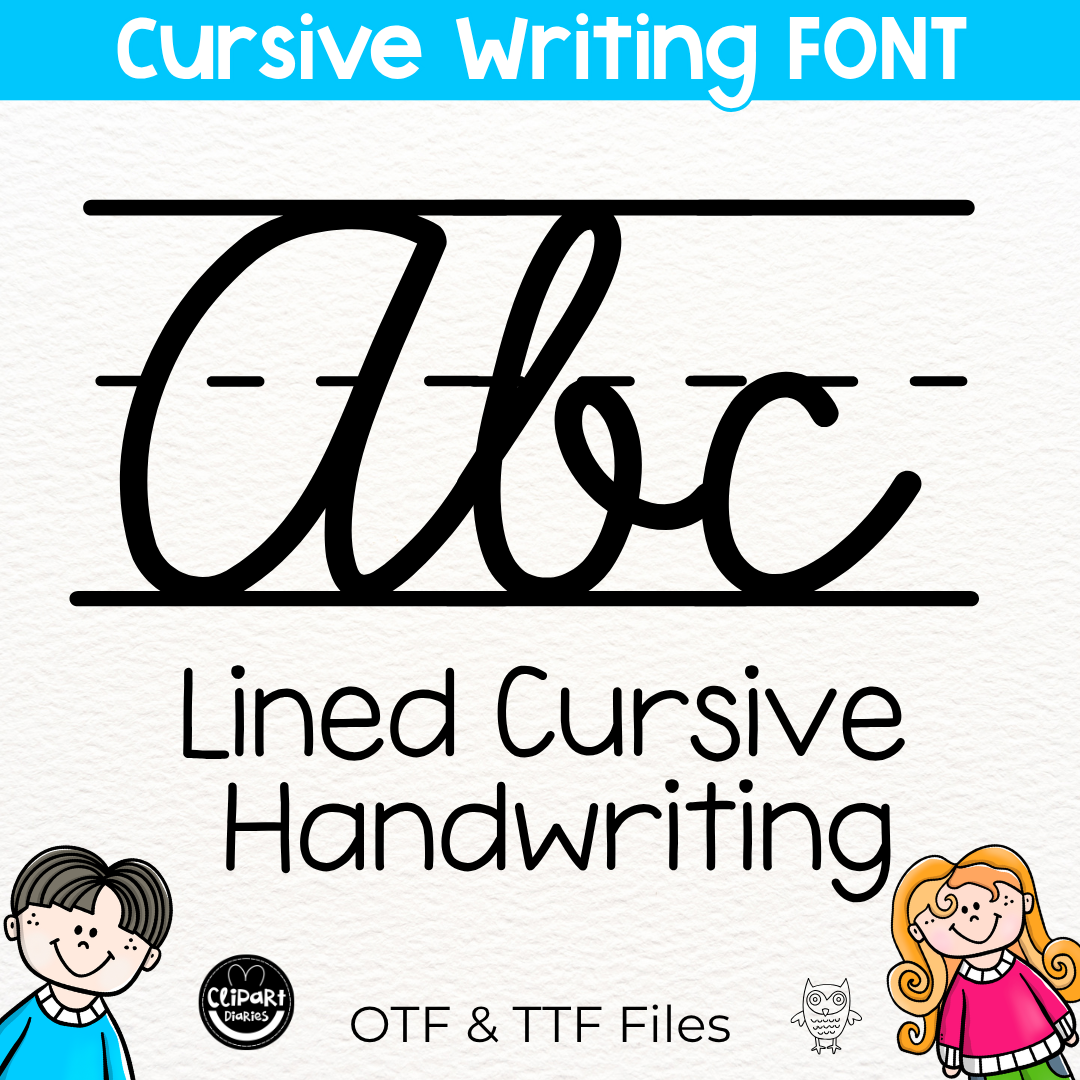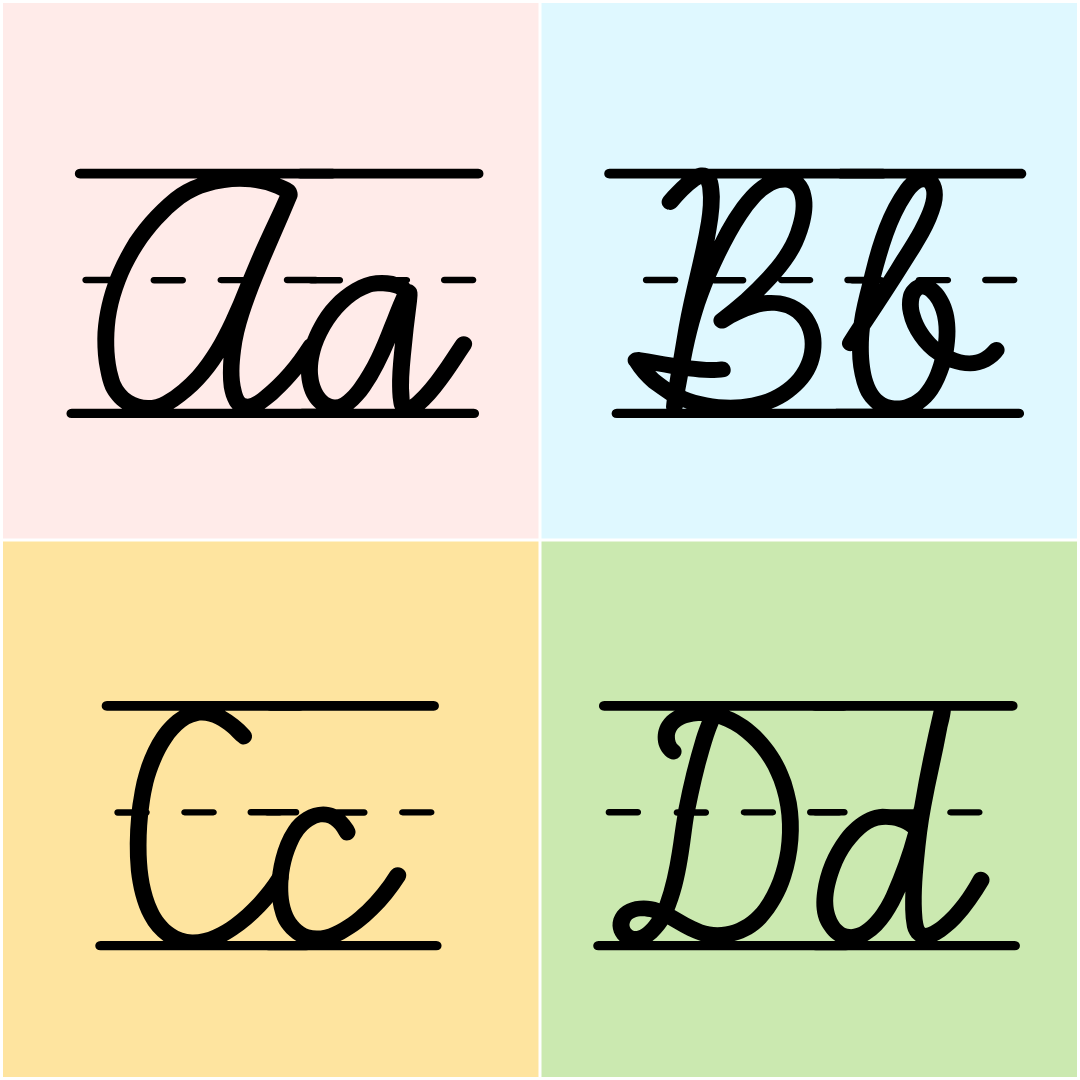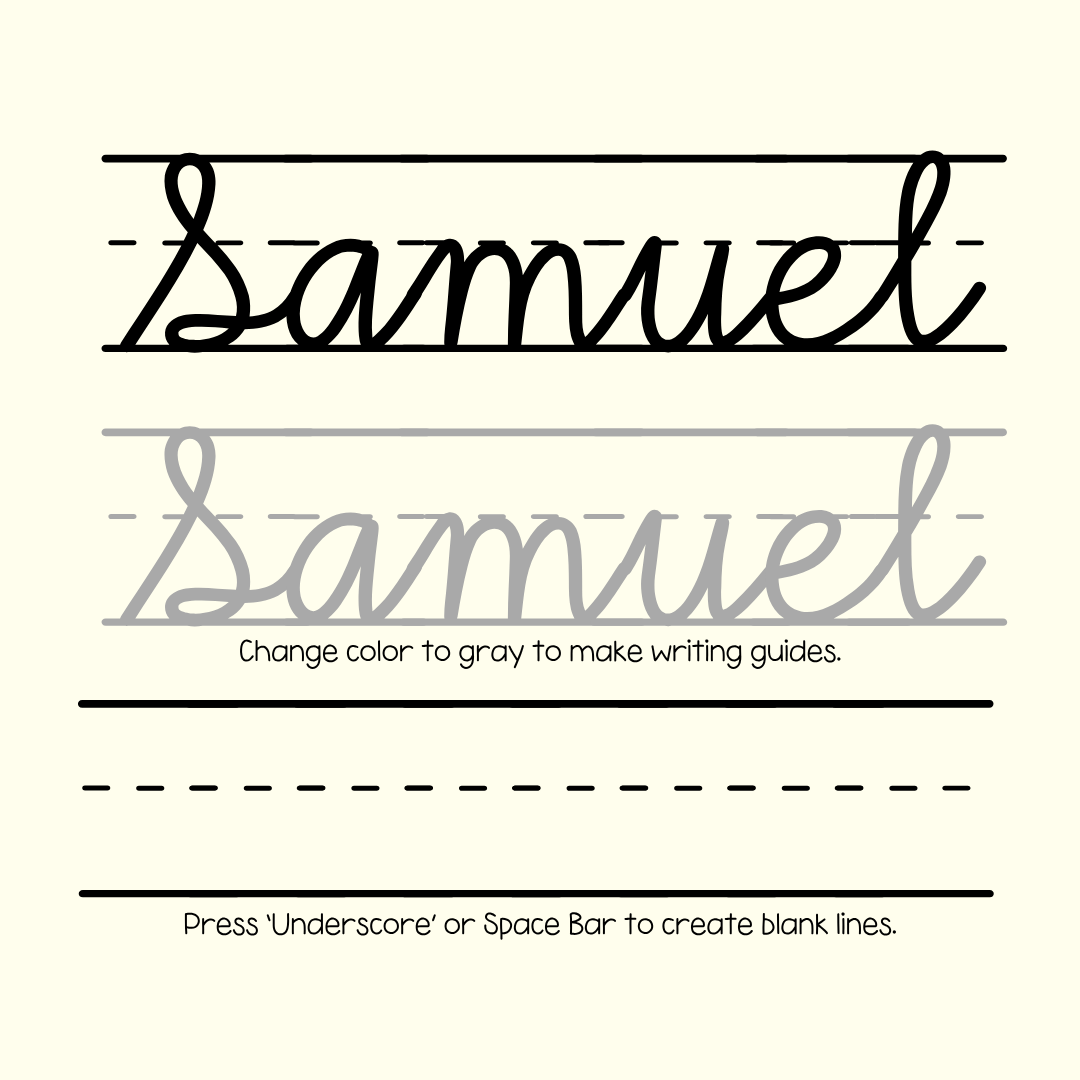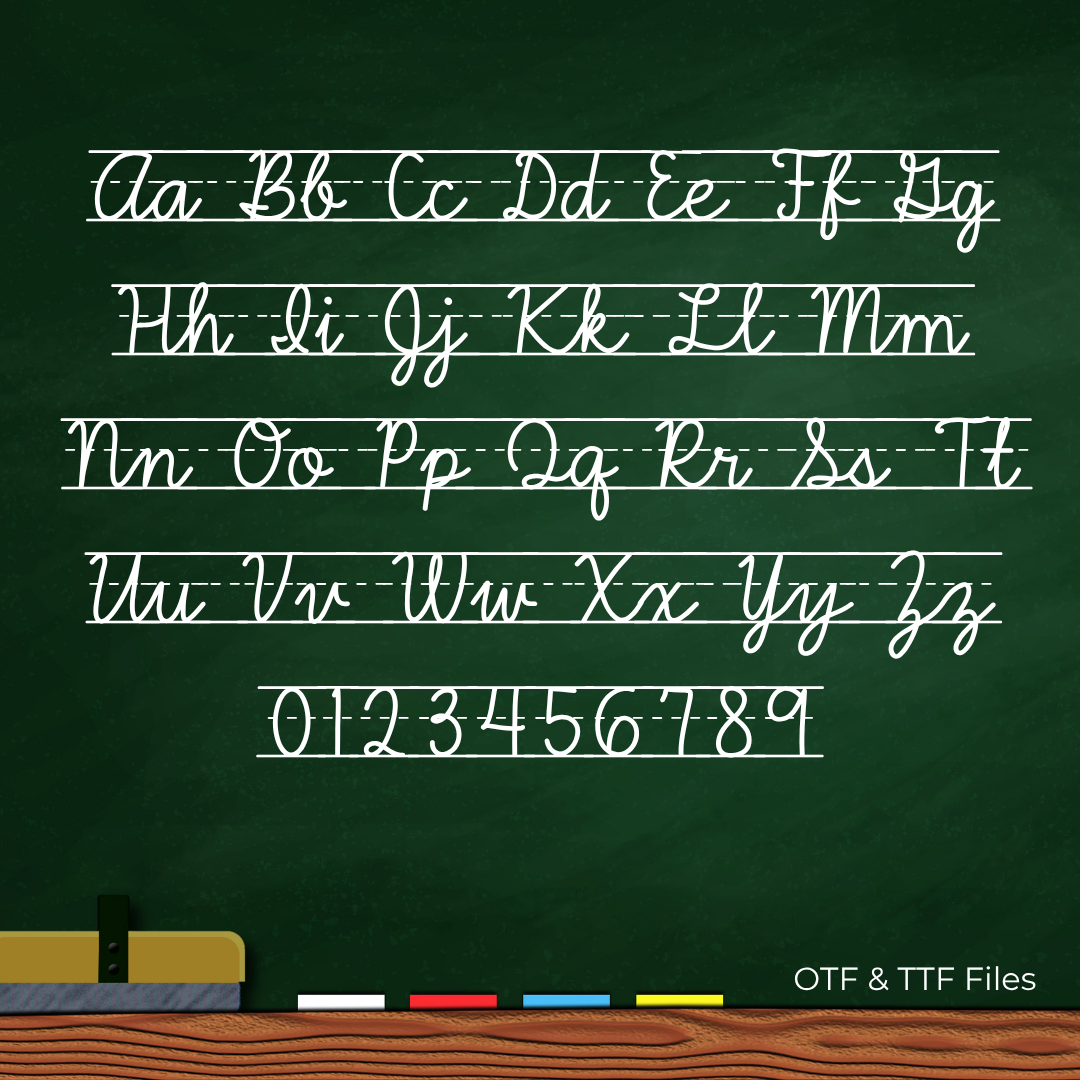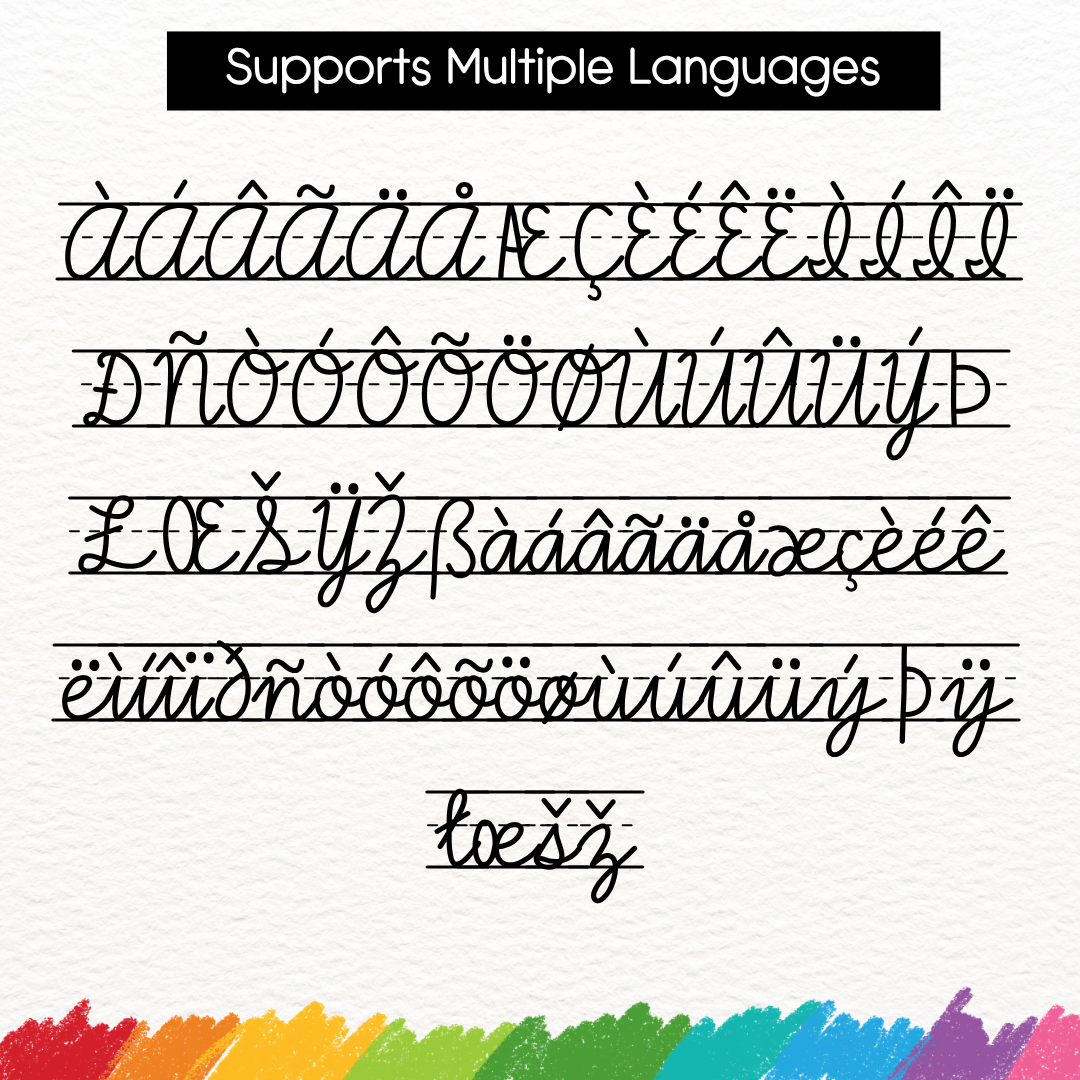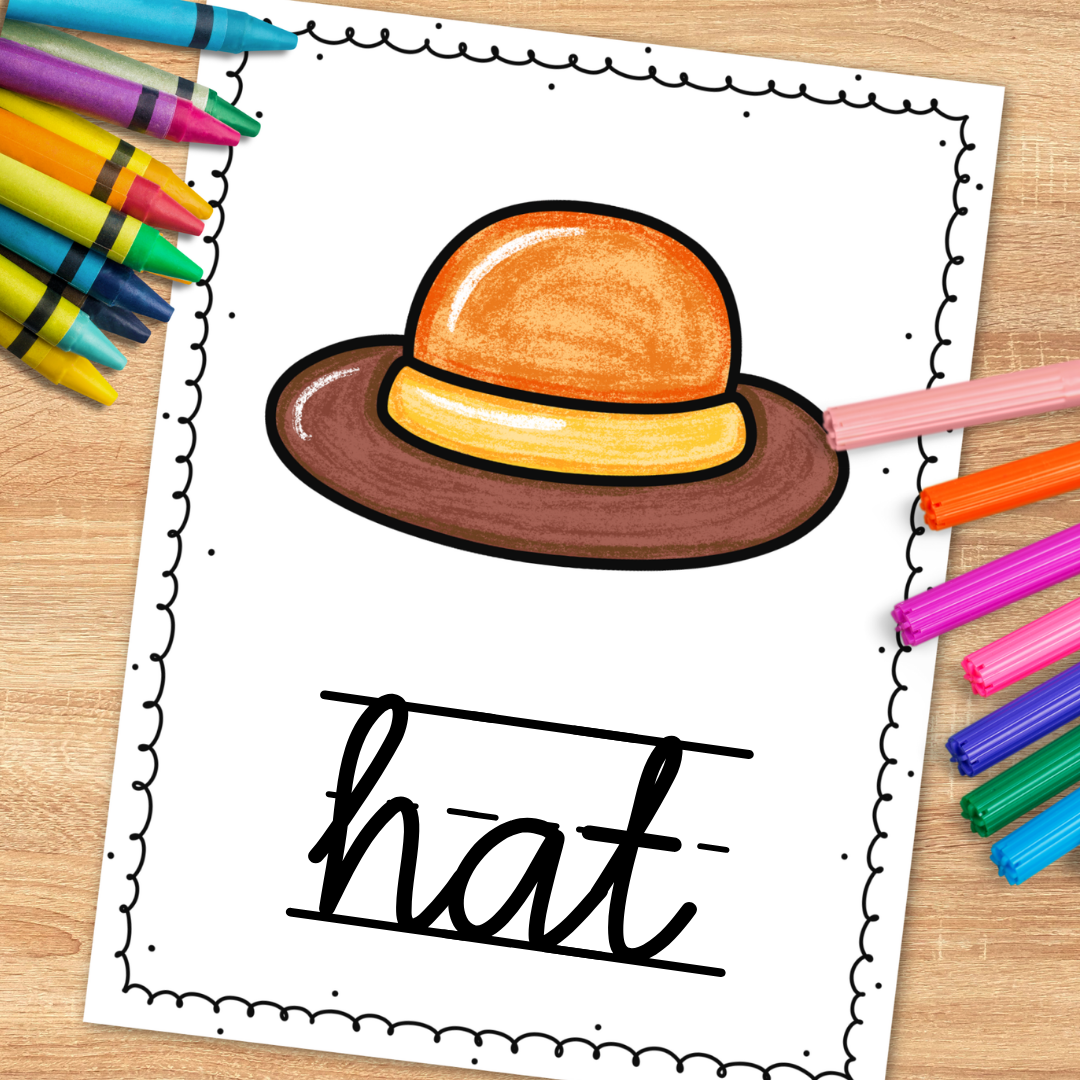
Cursive Handwriting Lined Font for Handwriting Practice, Diary Cursive 4, Script Font for Personal and Commercial Use
This cursive lined font is perfect for tracing and fine motor activities to practice writing cursive letters. You can use this cursive font with lines to create handwriting worksheets, tracing activities, name tags, alphabet posters, classroom décor, and other resources. The cursive line font is suitable for both personal and commercial projects. You can use this cursive line font on worksheets or products intended for sale.
This font supports multiple accents and languages.